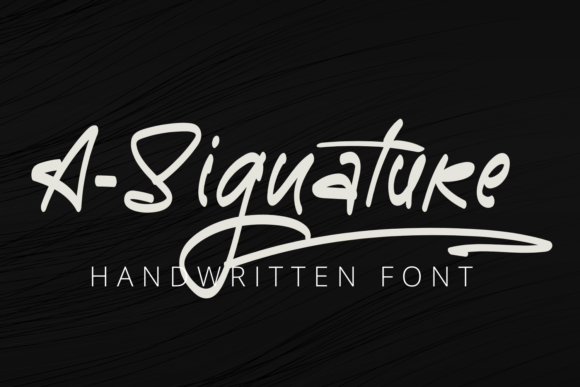
A-Signature Font: The Perfect Match for Your Most Creative Ideas
Have you ever been working on a project, pouring your heart and soul into it, and then, just as you’re about to finalize the design, you stumble upon the perfect font? That’s exactly what happened to many designers who discovered the A-Signature Font. Its delicate, elegant, and flowing handwritten style is the perfect finishing touch to any creative project.
A-Signature Font is designed to add a touch of sophistication and beauty to your designs. With its well-balanced characters, it’s the perfect choice for a wide range of projects, from wedding invitations to branding materials. Its versatility and elegance make it a valuable addition to any designer’s toolkit.
A-Signature Font Key Features
- Unique Characteristics: A-Signature Font features a unique, handwritten style with subtle flourishes and variations in letterform, giving it a personal and signature-like feel.
A-Signature Font Review
Overall, I think A-Signature Font is a decent choice for designers looking for a unique, handwritten feel. ✨ The font’s fluid lines and subtle flair give it a charming, personal touch that’s perfect for creative projects.
- ✨ Unique style that sets it apart from more common fonts
- ✨ Great for adding a touch of whimsy to designs
- ✨ Supports a wide range of languages, making it a versatile option
- ⚠️ Limited character set, which may make it difficult to use for longer texts
- ⚠️ Not as suitable for formal or professional designs
- ⚠️ Some characters may appear inconsistent or blurry at smaller sizes
Overall, I think A-Signature Font is a fun and creative option that’s worth considering for the right project. While it may not be the best choice for every design, it’s definitely a unique and eye-catching addition to any portfolio.